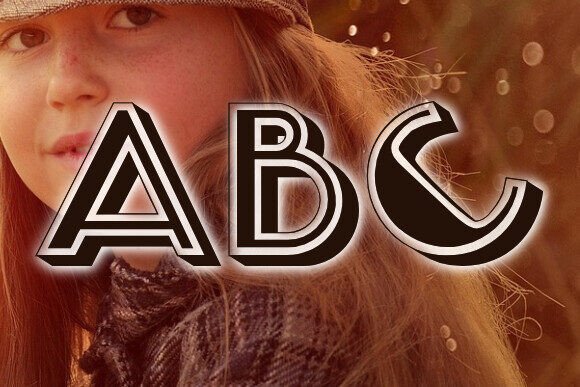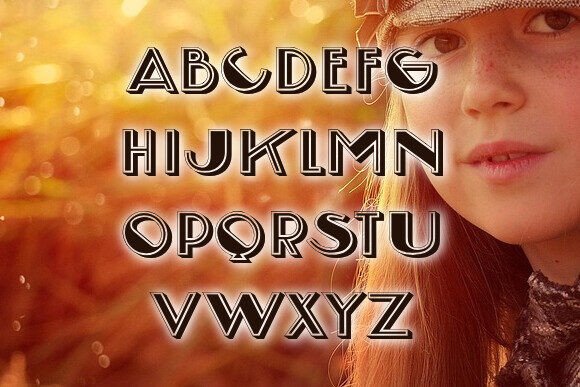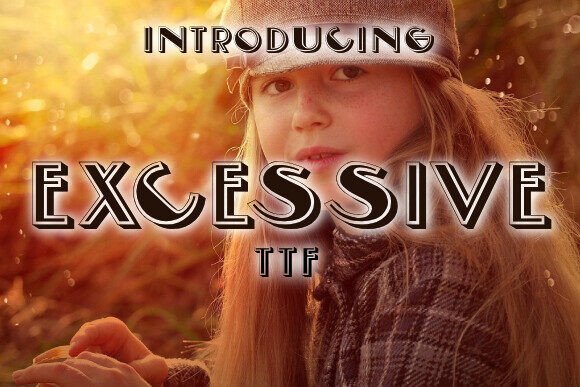
Introducing Excessive Font: Elevate Your Designs with Style
Are you tired of using the same old fonts in your designs? Look no further! Excessive Font is here to take your creations to the next level. This stylish font is perfect for designers and crafters who want to add a touch of sophistication and elegance to their work. In this article, we’ll dive into the world of Excessive Font and explore its features, benefits, and uses.
What is Excessive Font?
Excessive Font is a unique and modern font designed to make your designs stand out. Its sleek and stylish appearance makes it perfect for a wide range of applications, from posters and flyers to t-shirts and other merchandise. With Excessive Font, you can add a touch of glamour and sophistication to your work, making it perfect for designers and crafters who want to create something truly special.
Key Features of Excessive Font
- Unique and Modern Design: Excessive Font boasts a fresh and contemporary design that’s sure to grab attention.
- Highly Versatile: This font is perfect for a wide range of applications, from print materials to digital designs.
- Easy to Read: Despite its stylish appearance, Excessive Font is highly legible, making it perfect for body text and headlines.
- Scalable: Excessive Font is designed to look great at any size, from small captions to large headlines.
Benefits of Using Excessive Font
So, why should you choose Excessive Font for your designs? Here are just a few benefits of using this amazing font:
- Adds Visual Interest: Excessive Font adds a touch of style and sophistication to your designs, making them more visually appealing.
- Enhances Brand Identity: With Excessive Font, you can create a unique and consistent brand identity that sets you apart from the competition.
- Boosts Creativity: This font is perfect for designers and crafters who want to push the boundaries of their creativity and try something new.
Using Excessive Font in Your Designs
So, how can you use Excessive Font in your designs? Here are a few ideas to get you started:
- Posters and Flyers: Use Excessive Font to create eye-catching posters and flyers that grab attention.
- T-Shirts and Merchandise: Add a touch of style to your t-shirts and other merchandise with Excessive Font.
- Digital Designs: Use Excessive Font in your digital designs, such as social media graphics, blog posts, and website headers.
Tips and Tricks for Working with Excessive Font
Here are a few tips and tricks to help you get the most out of Excessive Font:
- Experiment with Different Sizes: Don’t be afraid to experiment with different font sizes to find the perfect balance for your design.
- Pair with Other Fonts: Try pairing Excessive Font with other fonts to create a unique and interesting contrast.
- Use in Combination with Images: Use Excessive Font in combination with images to create a visually appealing design.
In conclusion, Excessive Font is a stylish and versatile font that’s perfect for designers and crafters who want to elevate their designs. With its unique and modern design, Excessive Font is sure to add a touch of sophistication and elegance to your work. Whether you’re creating posters, flyers, t-shirts, or digital designs, Excessive Font is the perfect choice. So why wait? Download Excessive Font today and take your designs to the next level!